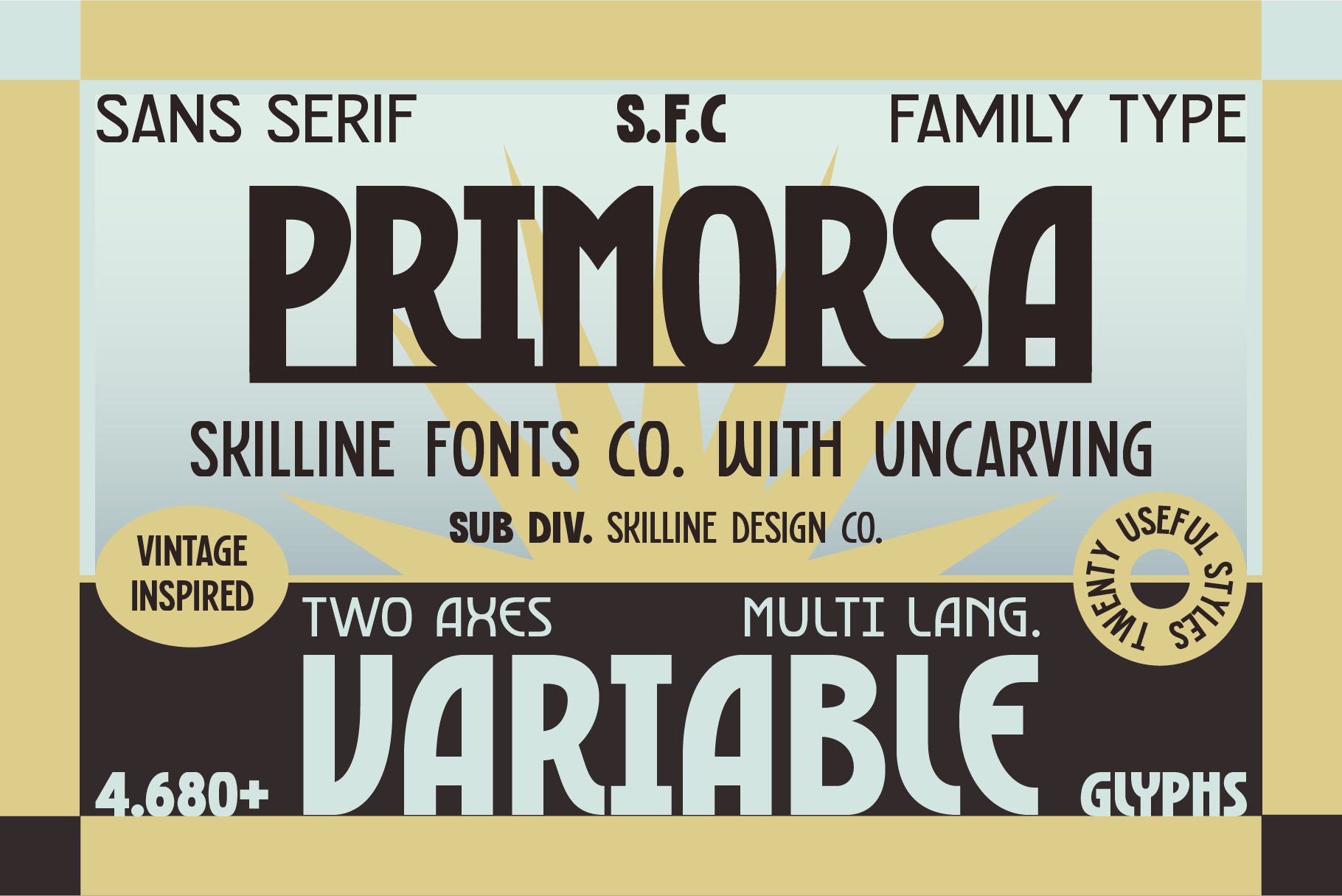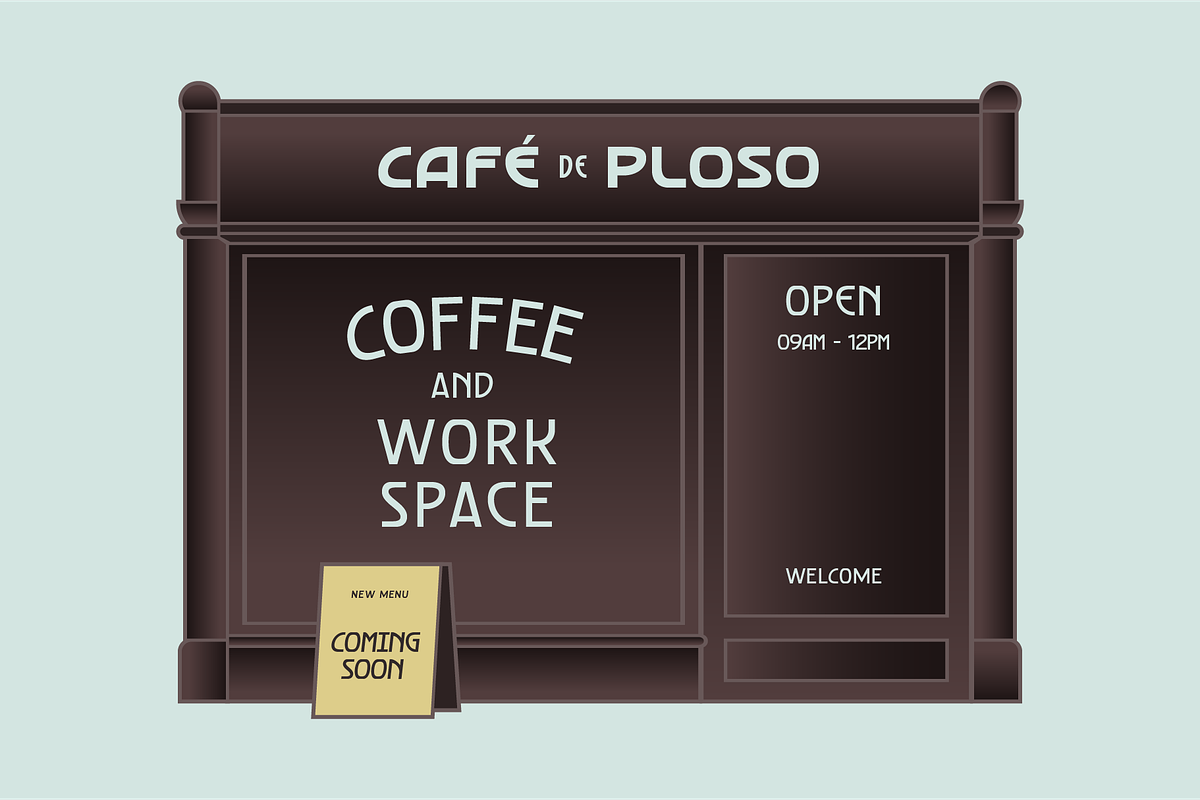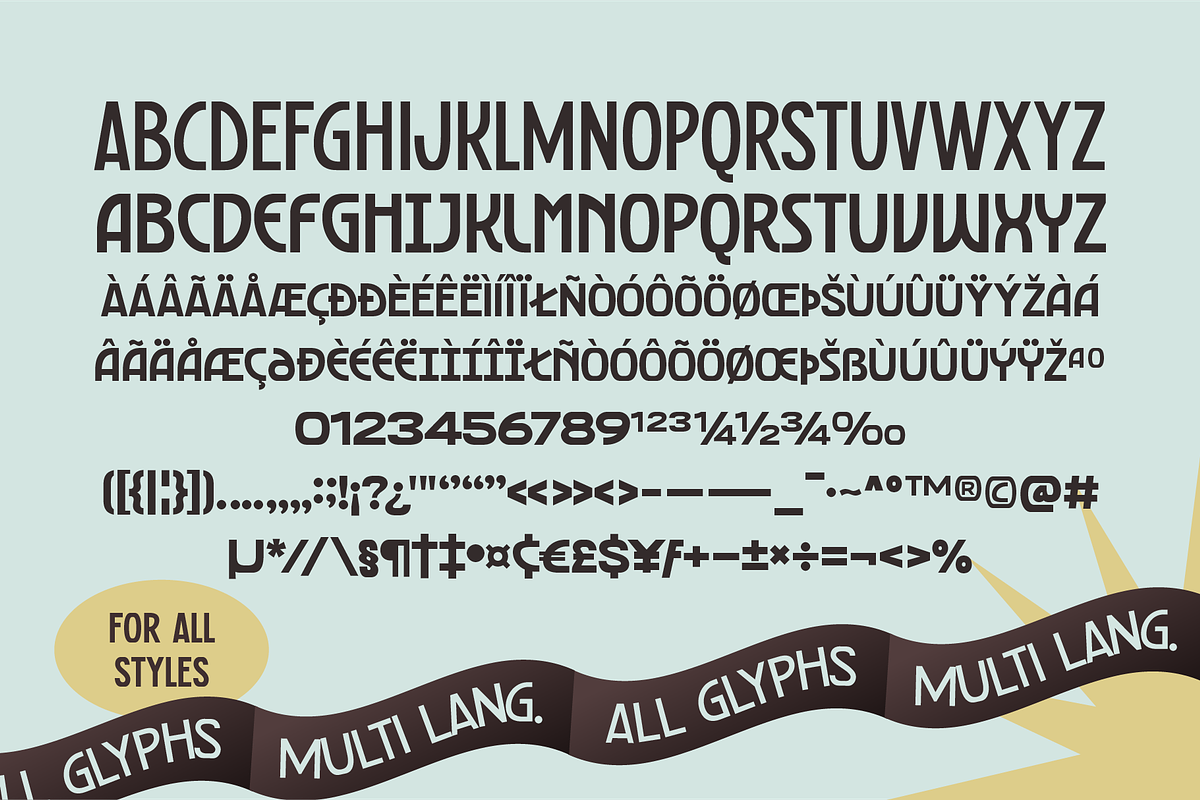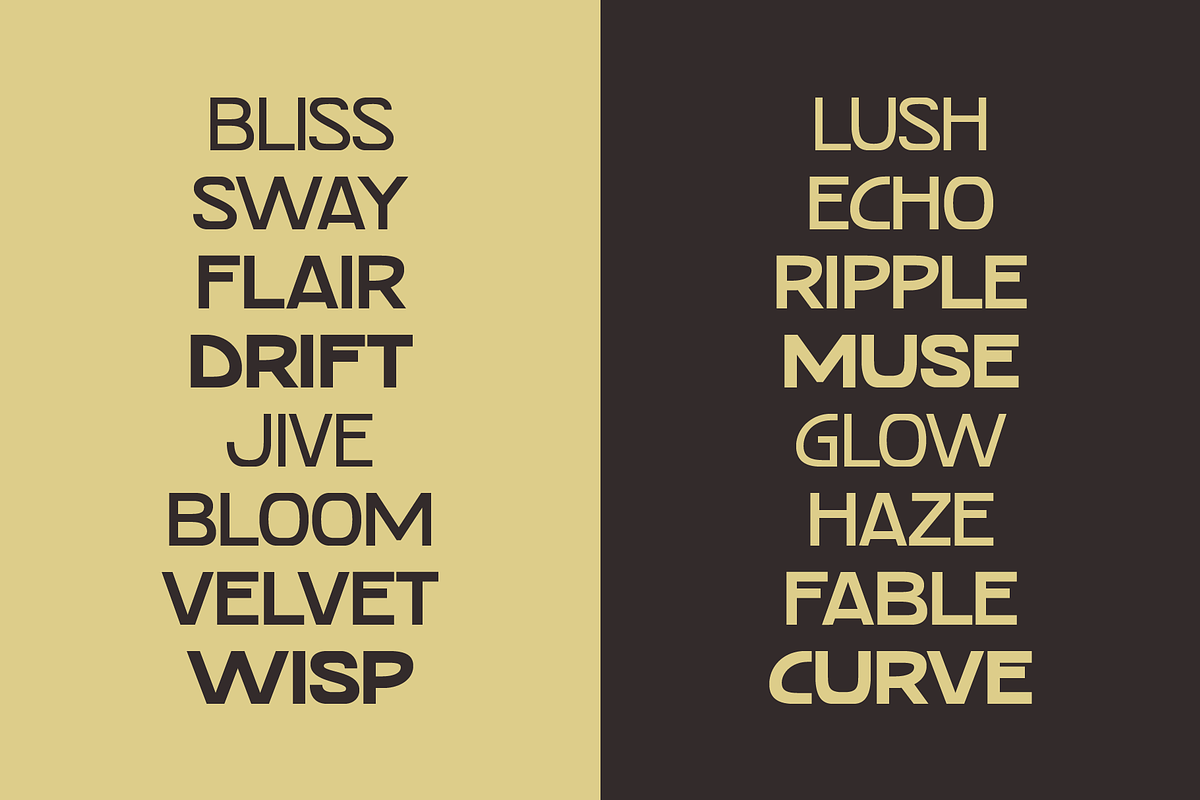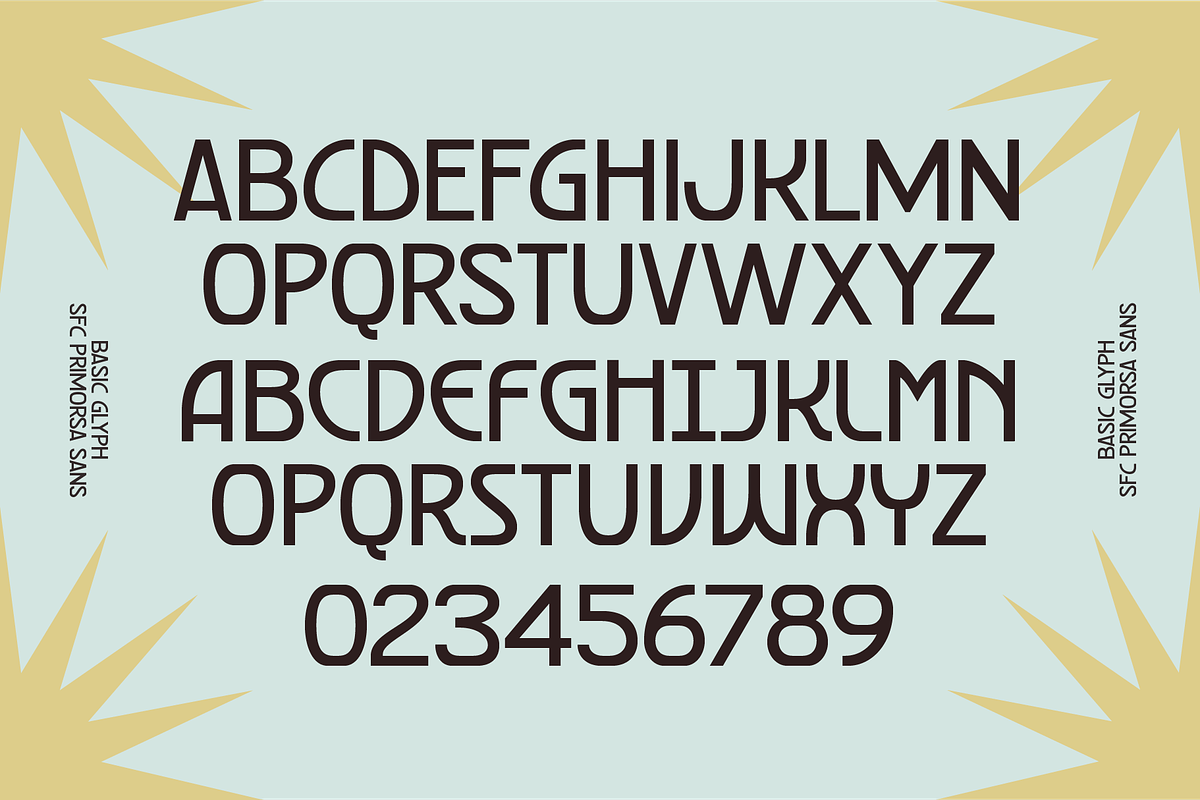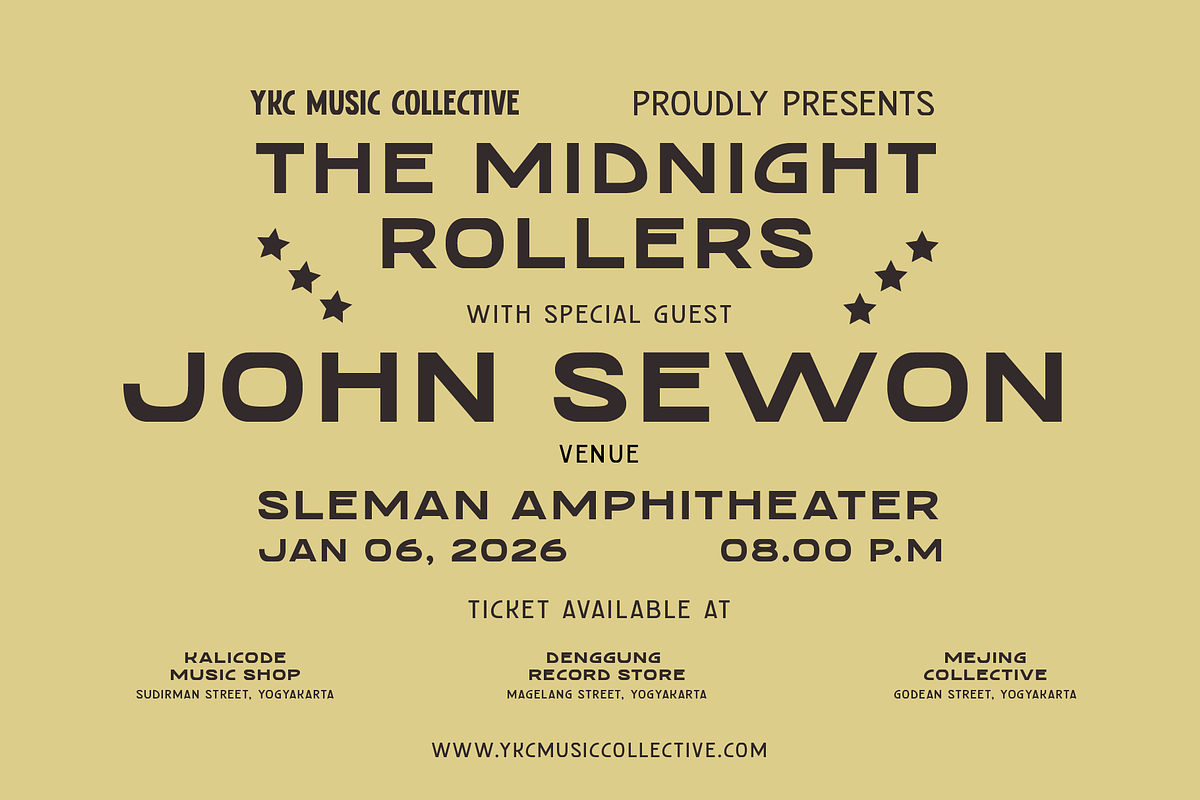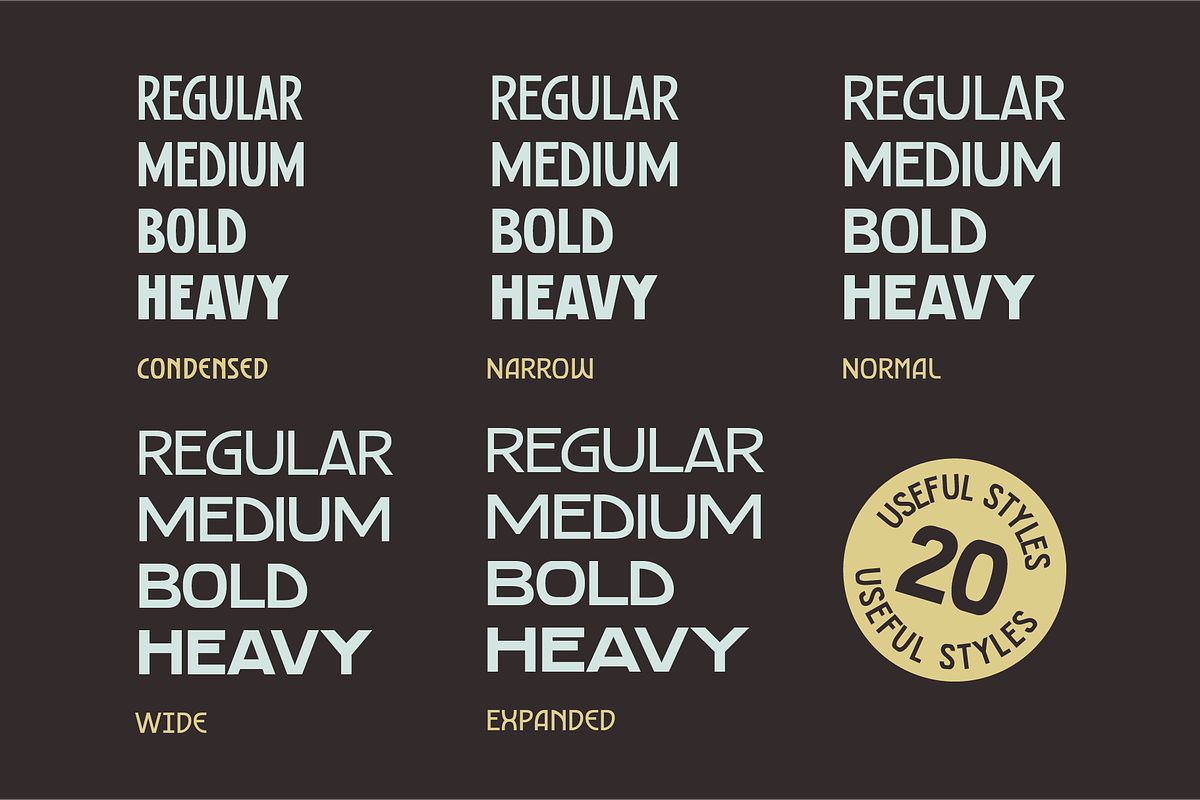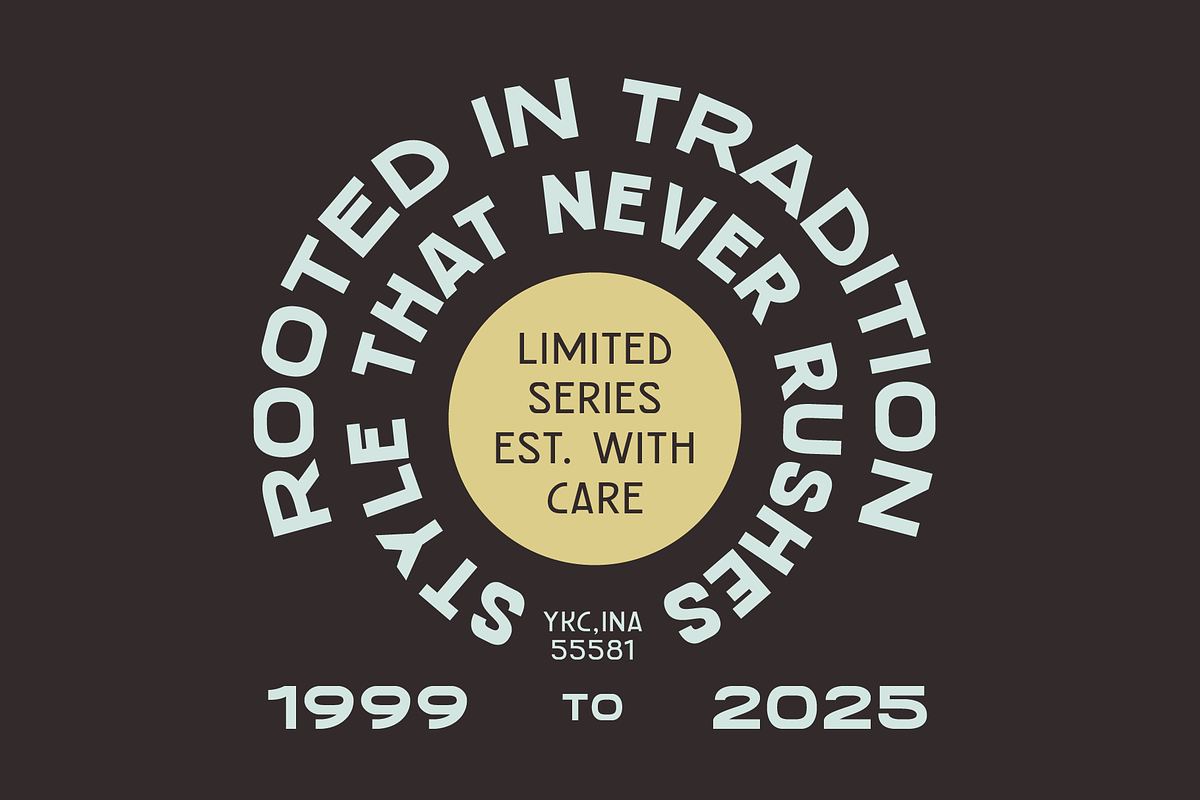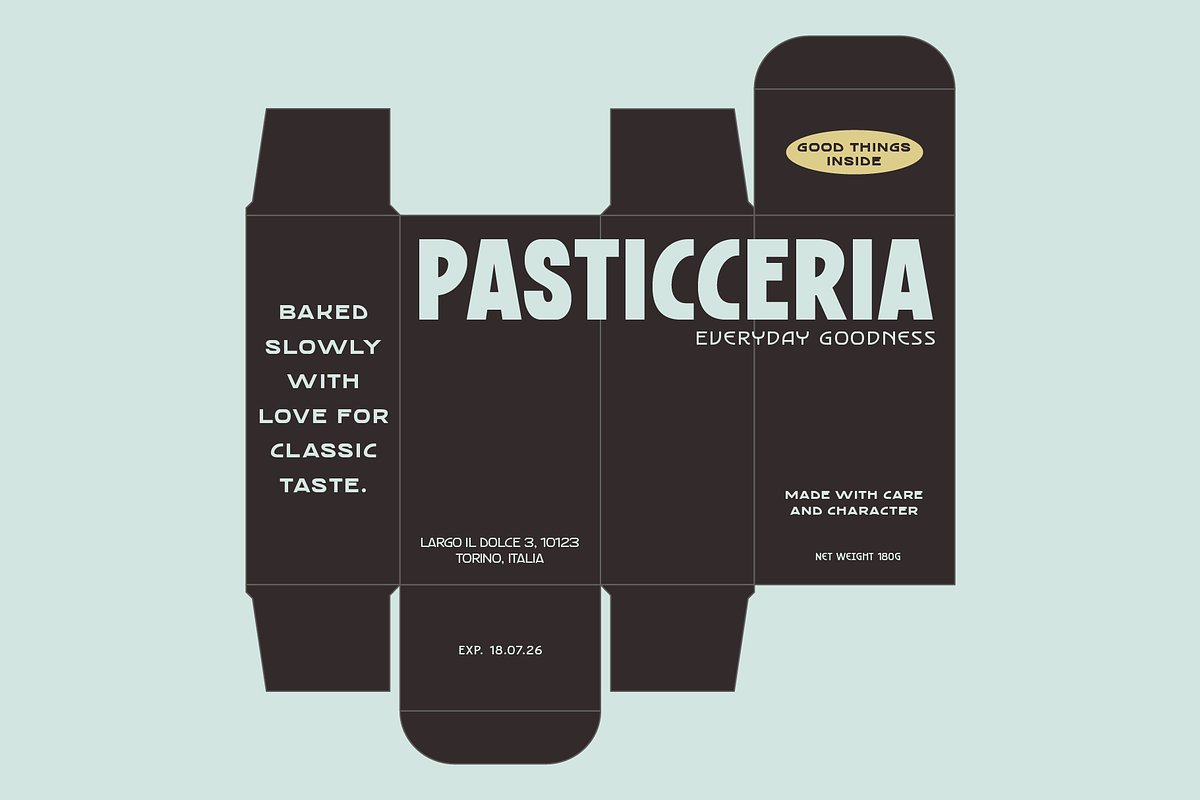
SFC Primorsa Sans - 20 Fonts
SFC Primorsa is a modern sans serif variable family with a confident, vintage-inspired character. Designed as a complete font system, it features clean geometry, smooth curves, and strong letterforms for impactful visual communication.
With five widths, Condensed, Narrow, Normal, Wide, and Expanded and four weights, Primorsa offers 20 versatile styles for flexible layouts and consistent branding across print and digital media. It performs seamlessly in logos, editorial, posters, packaging, signage, and apparel, delivering clarity, personality, and professional strength.
- Sans Serif Family Typeface
- Two Axes for Flexibility
- High Readability